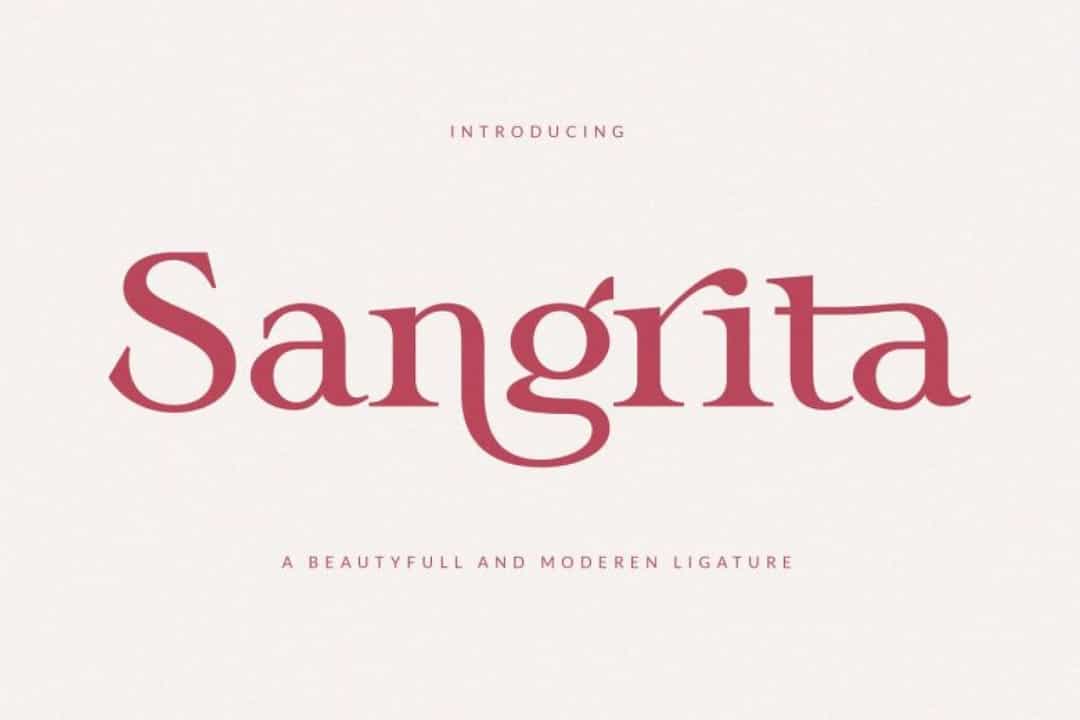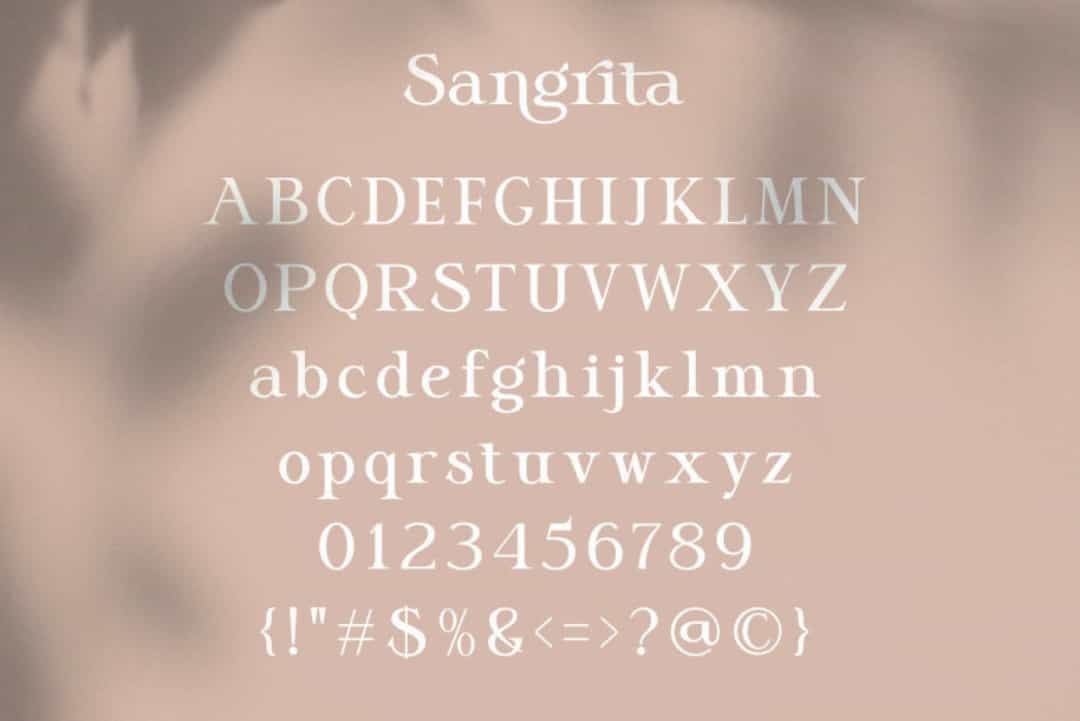
Sangrita Font is an elegant and sophisticated serif typeface, suitable for modern as well as nostalgic projects such as logos, magazines, social media pages or other publications. Already matched to your project needs and ready to use – perfect!